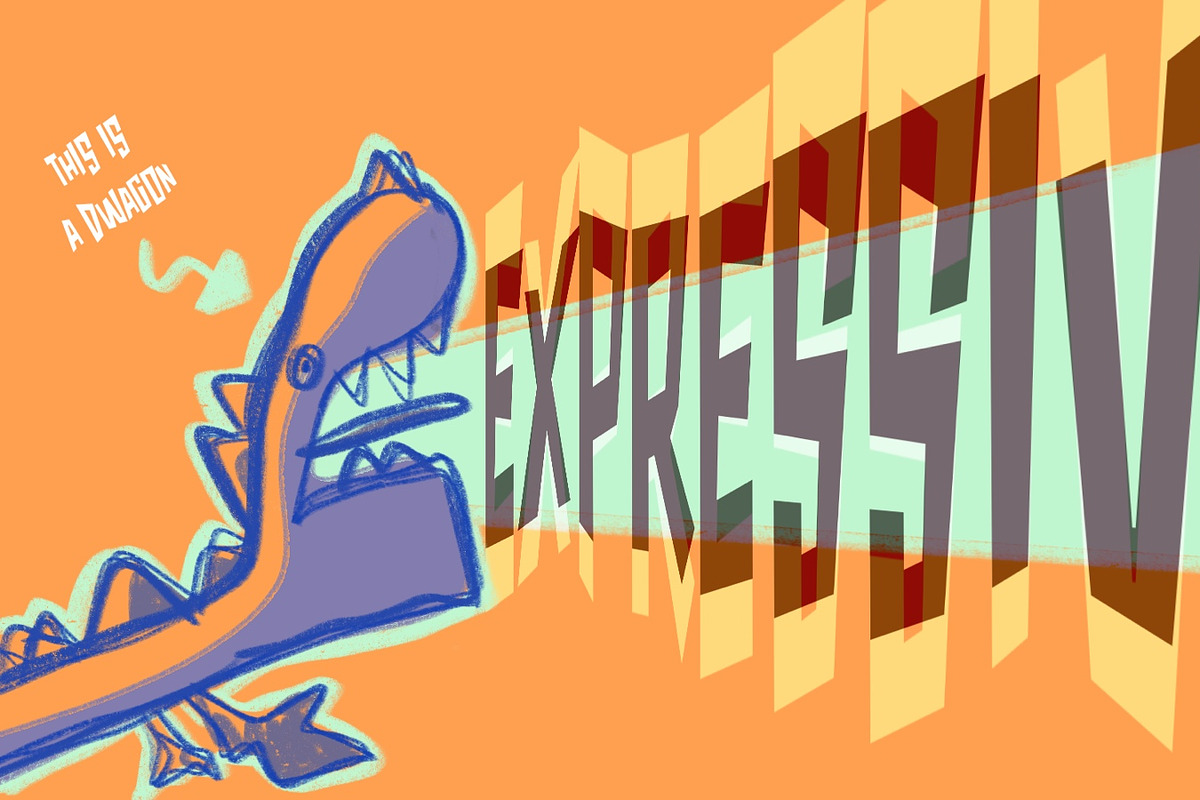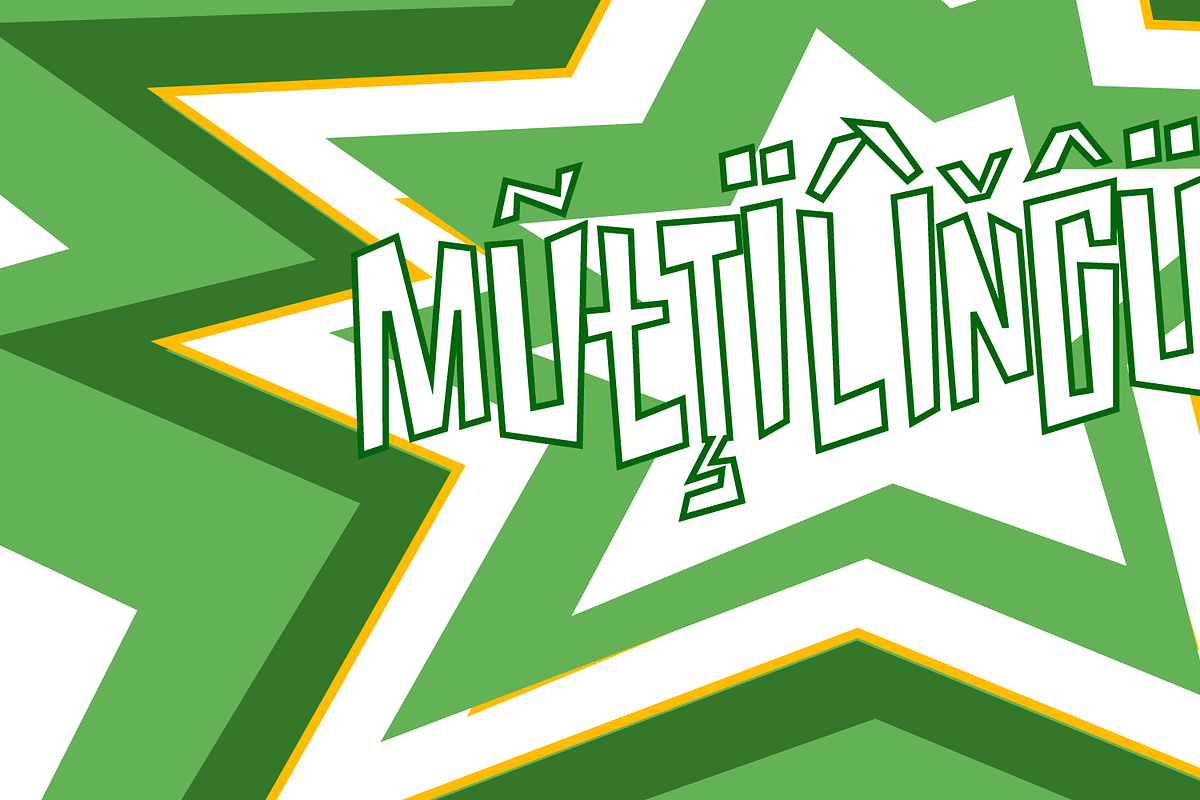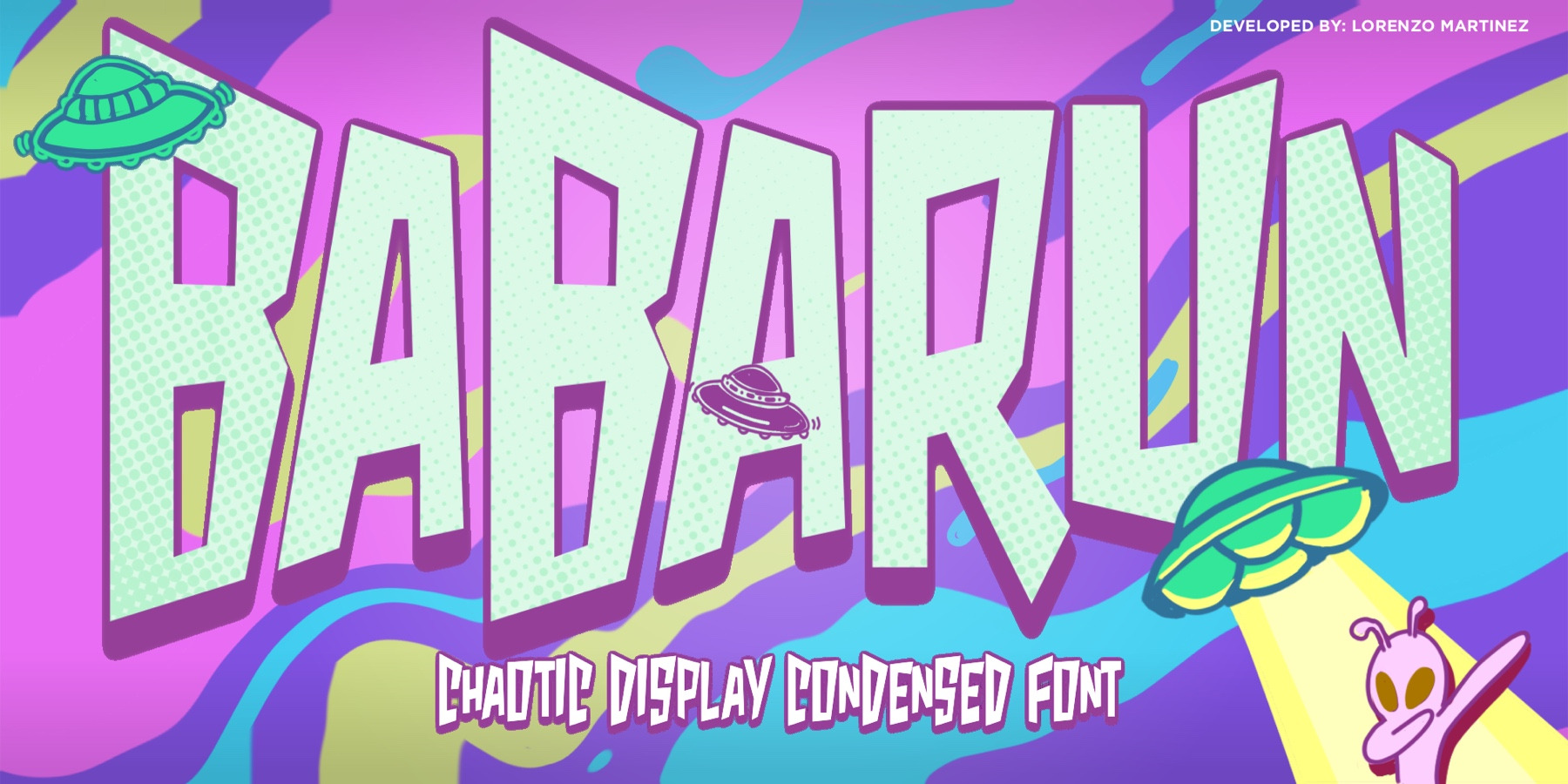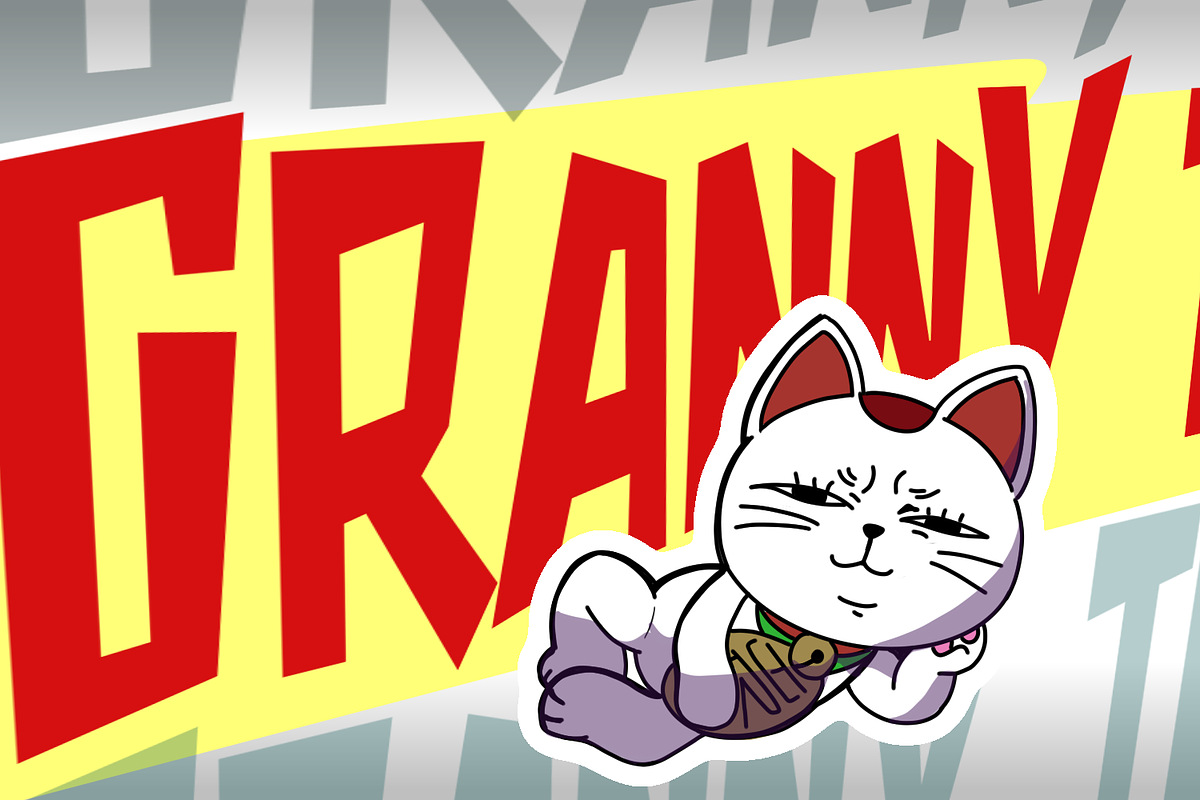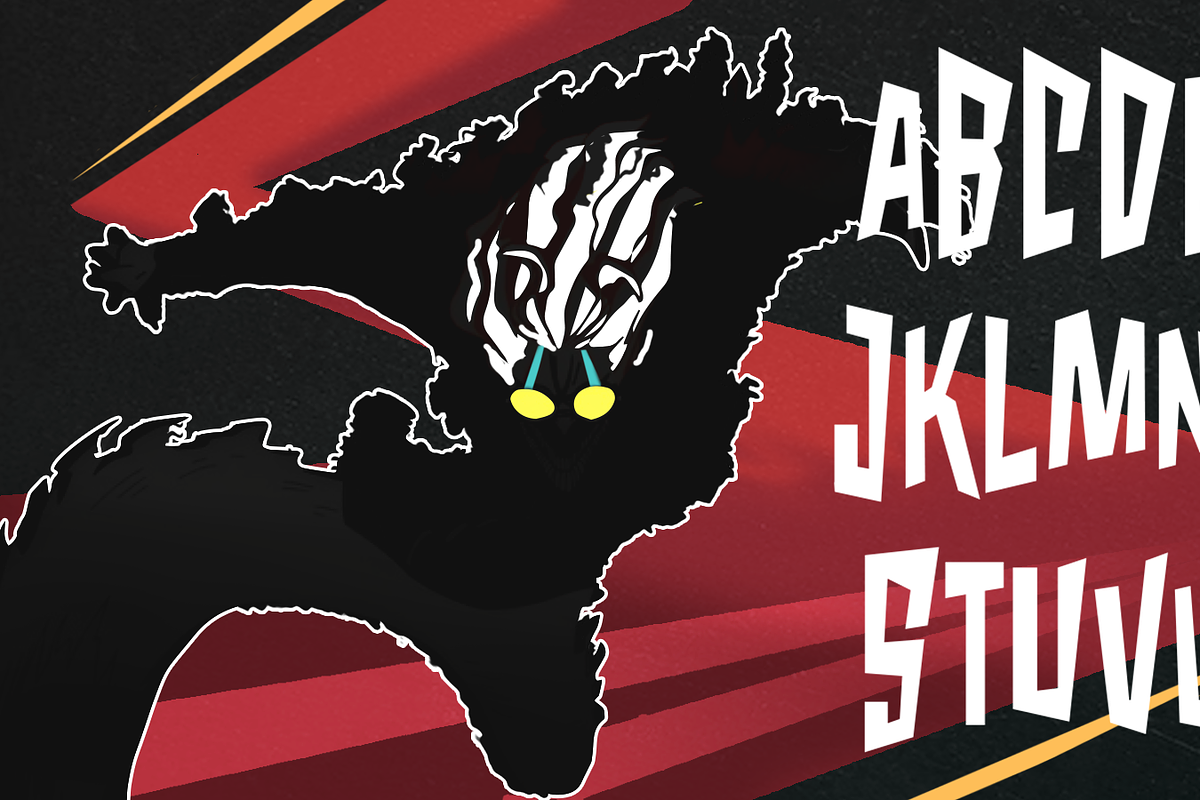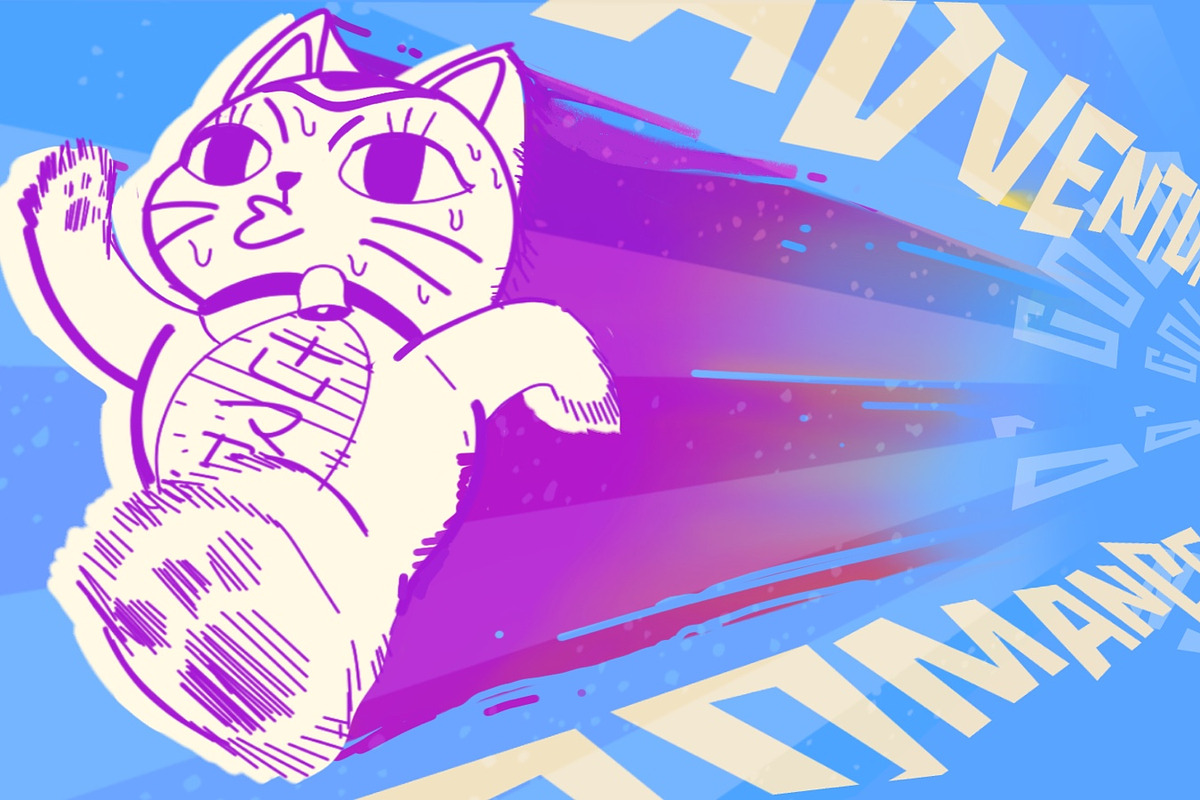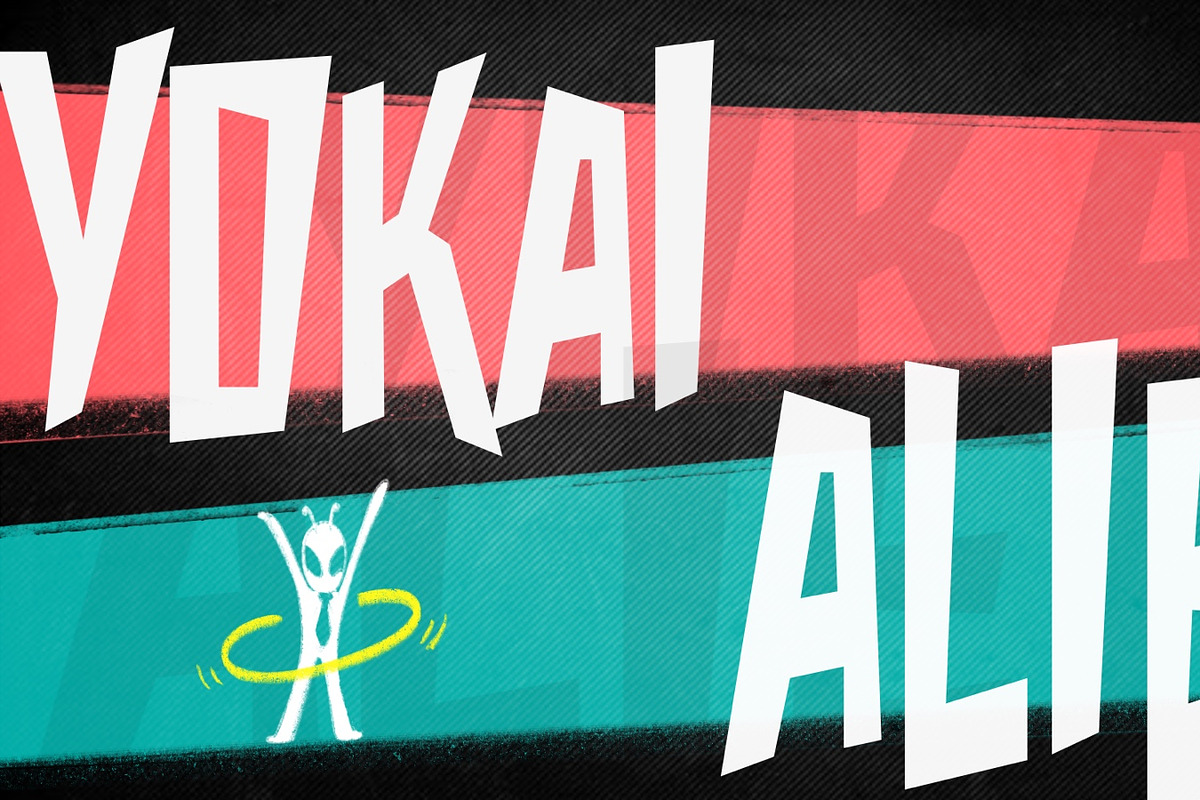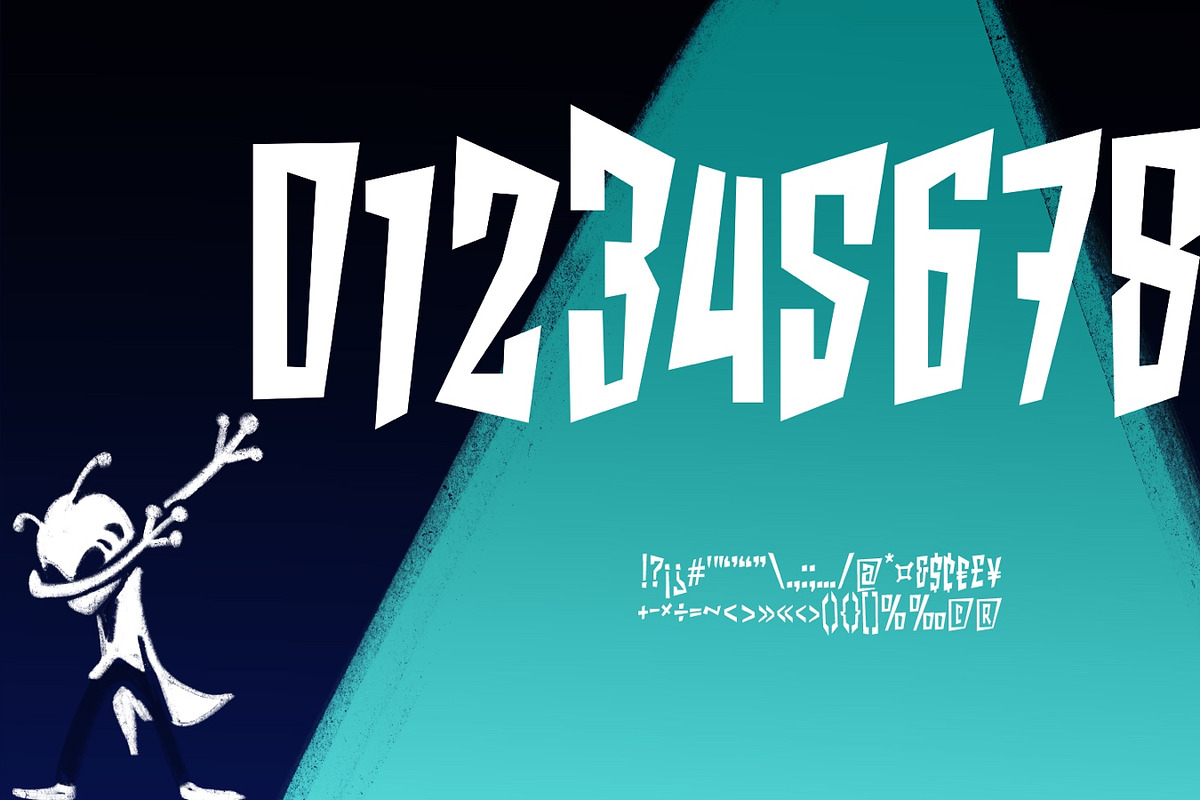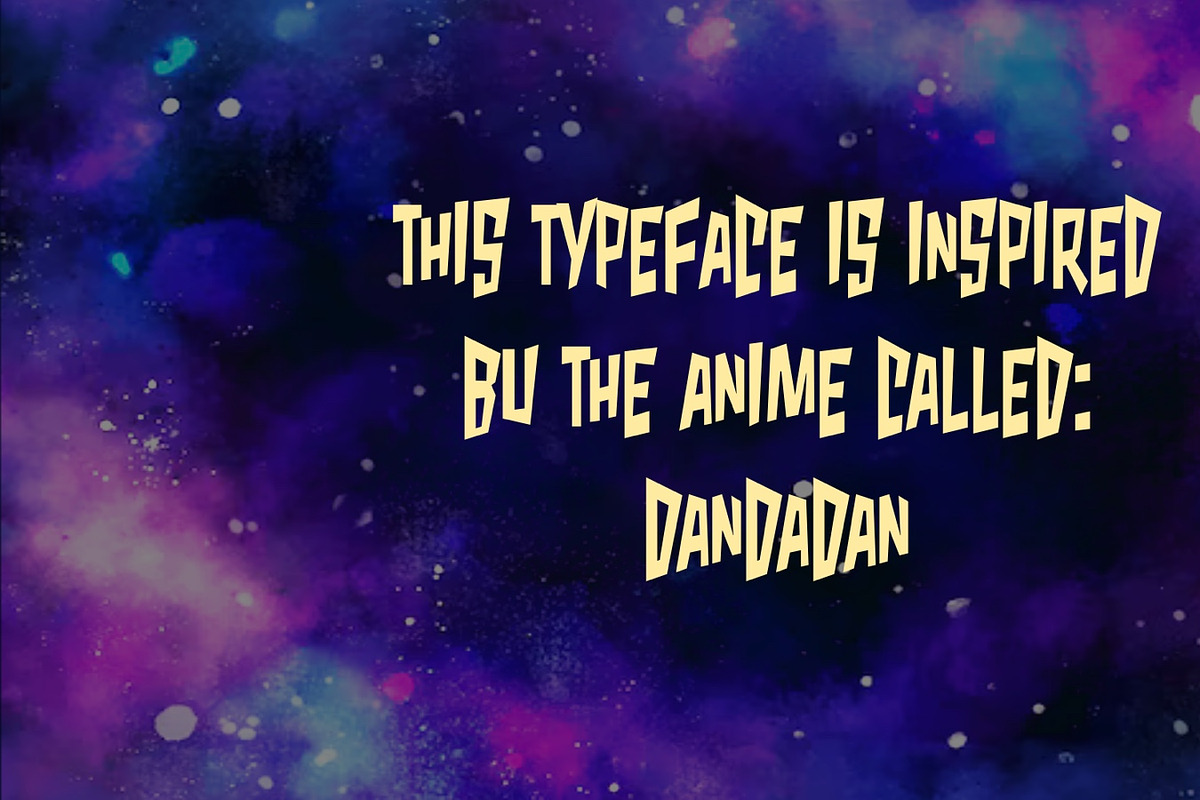
Babarun- Chaotic Display Font
Babarun is a chaotic, high-energy display font inspired by the fast-paced and bizarre world of the anime Dandadan. The name blends "Baba" (granny in Japanese) with "Run", a nod to the supernatural yokai granny that sprints through the story with turbo speed.
This ALL CAPS font is packed with eccentric letterforms and bold personality, designed to grab attention and inject playful chaos into your designs.
⚡ Best For:
- Anime-inspired posters and zines
- Bold title cards and YouTube thumbnails
- Streetwear and apparel designs
- Stickers, labels, and album covers
- Attention-grabbing web graphics
- Full uppercase A–Z
- Numbers and essential punctuation
- Multilingual language support
⚠️ Not suitable for body text. Use it loud, use it big, as this font was made to shout.